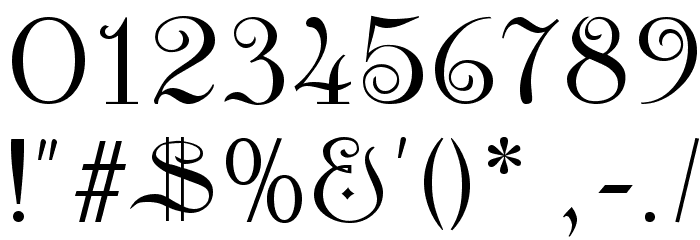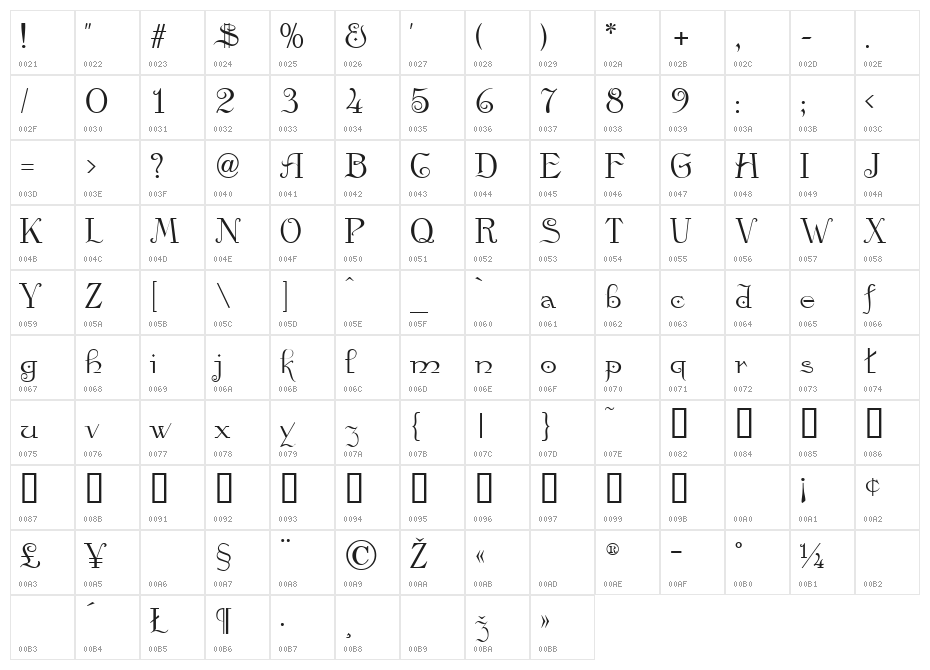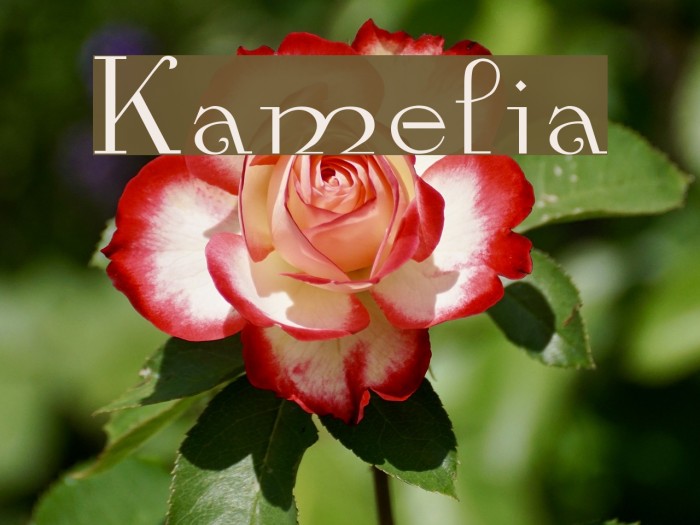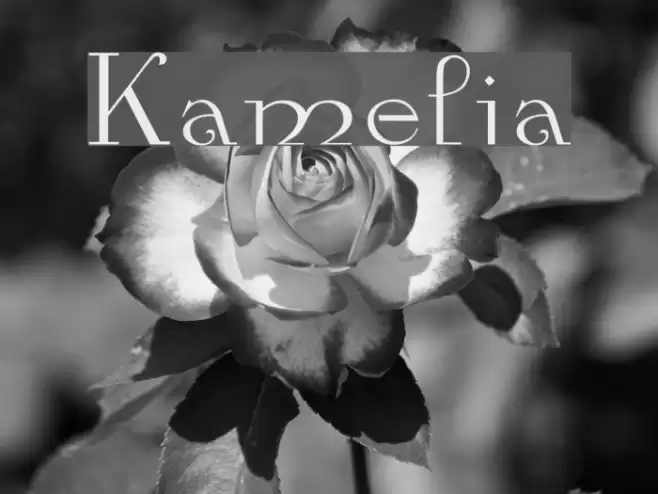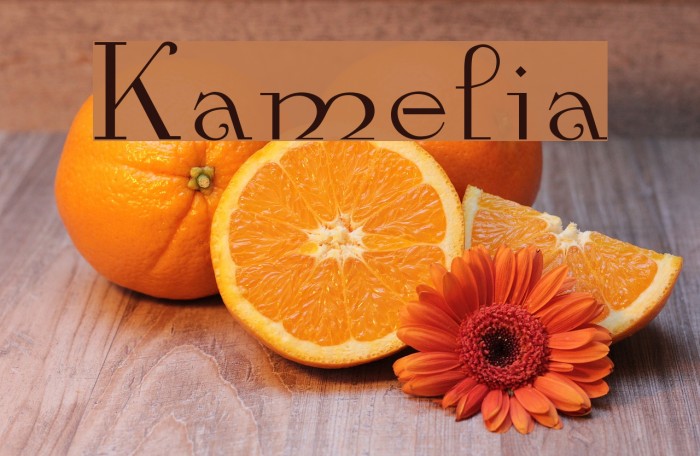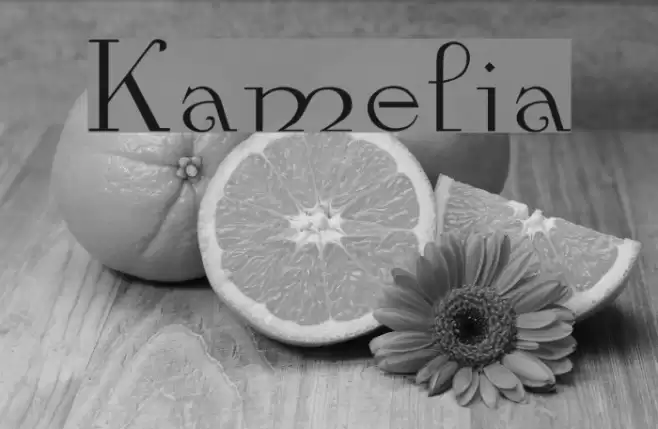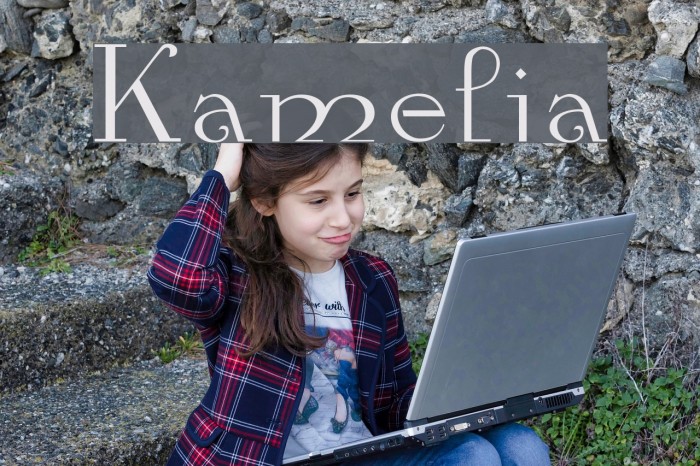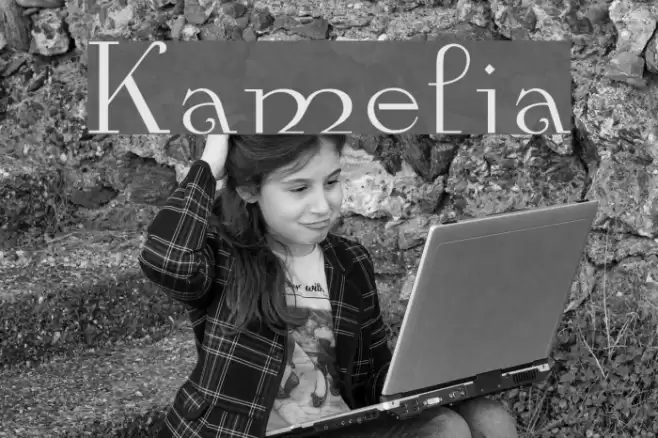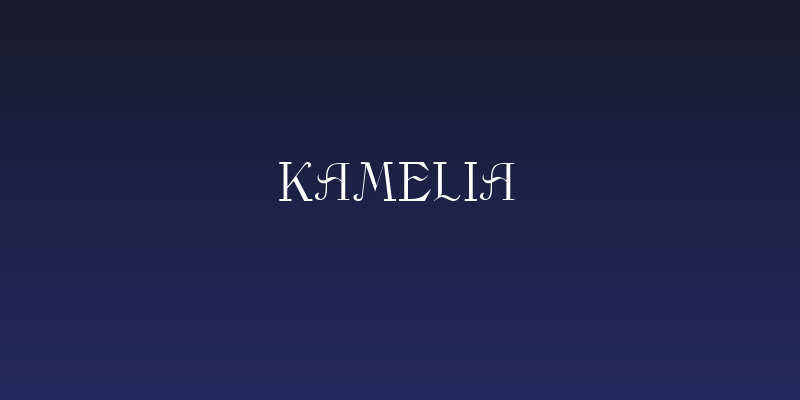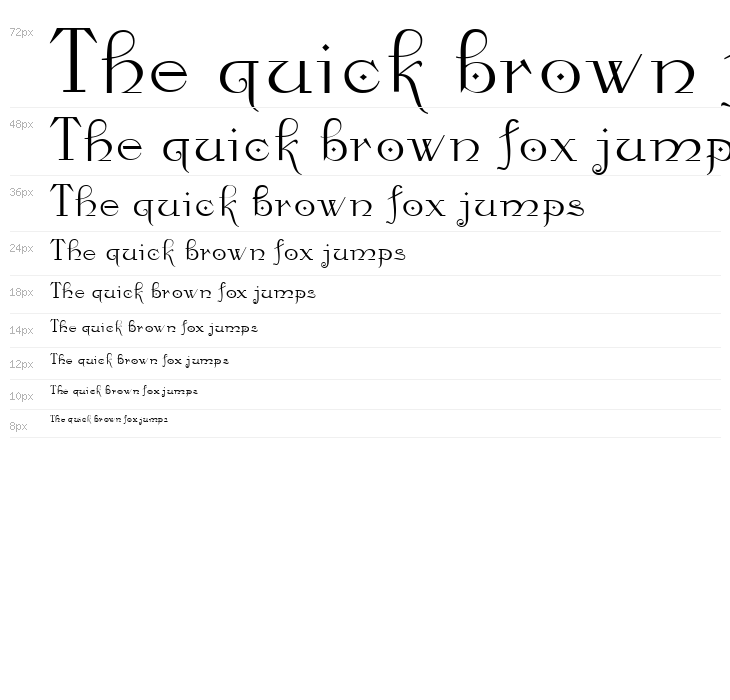
Kamelia Font
Kamelia Description
This font features a decorative and elegant style with a unique blend of classic and modern elements. The uppercase letters exhibit a distinct flair with ornamental serifs and subtle curves, giving them a sophisticated appearance. The lowercase characters maintain a consistent style, with some letters incorporating playful loops and swashes that add a touch of whimsy. The numerals are bold and slightly stylized, ensuring readability while maintaining the font's overall aesthetic. Special characters are crafted with attention to detail, complementing the font's artistic nature. This font is ideal for projects that require a touch of elegance and creativity.